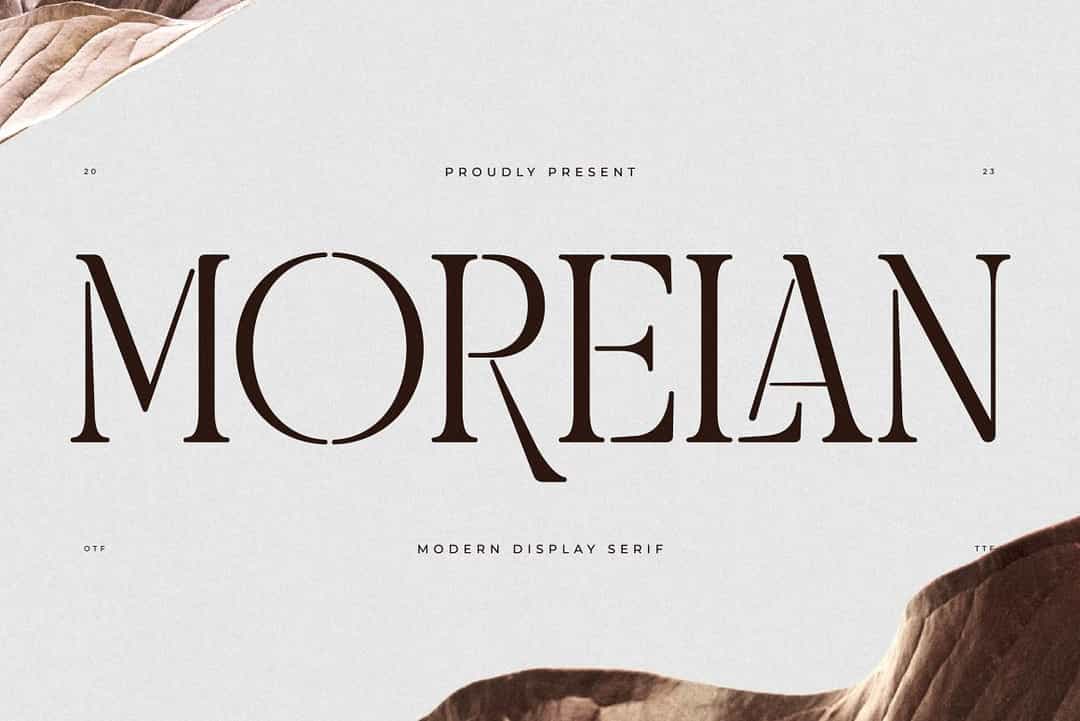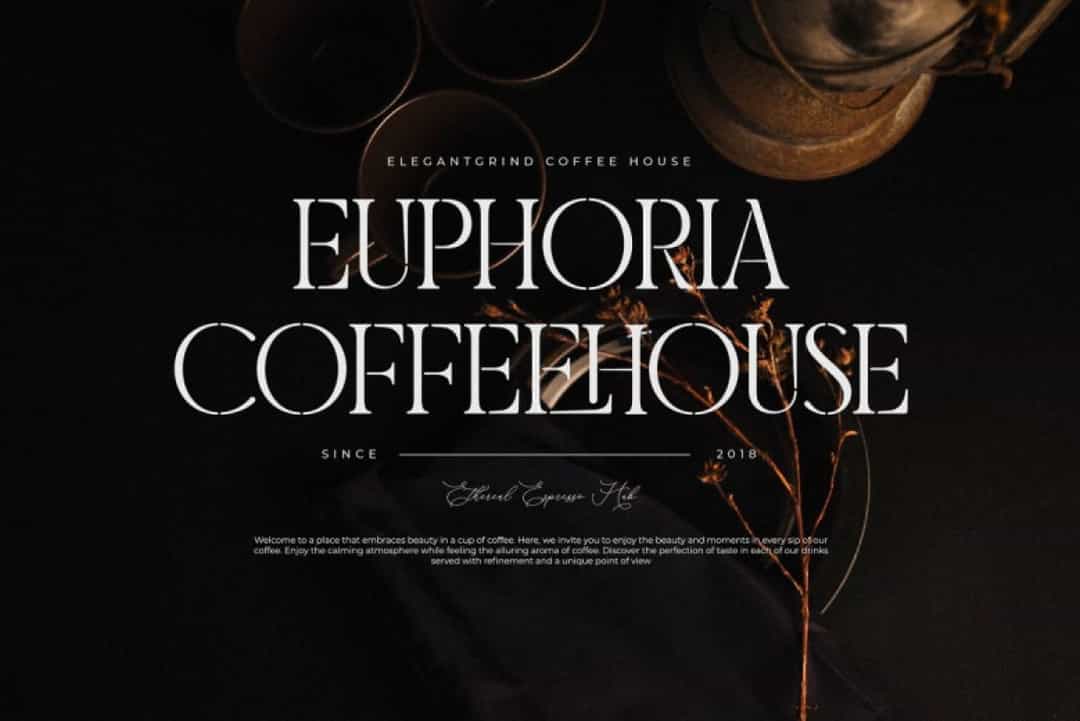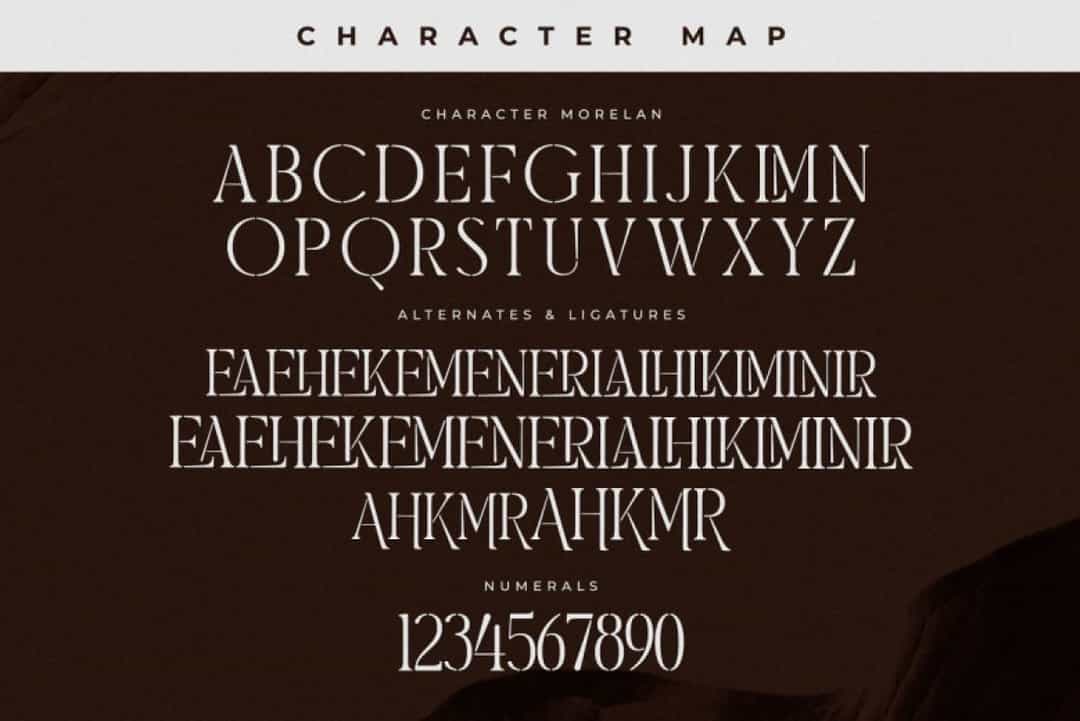
Morelan Font was developed by Storytype as a contemporary and timeless display serif font with its own distinct style and contemporary look. Perfect for creating stylish logos, movie or book styles, fashion label clothing labels, magazines and lettering, quotes as well as much more, Morelan Font offers something special.